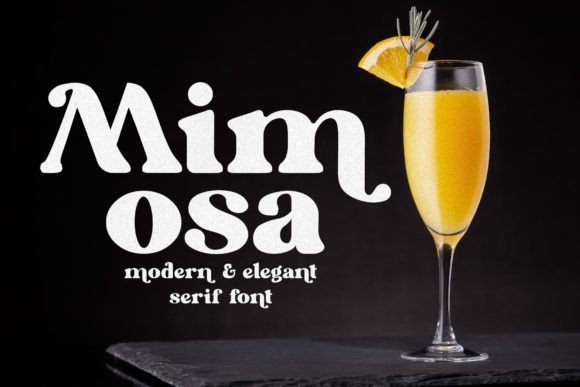
Journey back in time with Mimosa Font, the captivating serif font that transports you to the golden eras of design. Inspired by the charm of the 1950s, 1960s, and 1970s, Mimosa epitomizes the timeless allure of vintage aesthetics.
Crafted by the visionary font designers at HipFonts, Mimosa seamlessly blends modern elegance with retro flair. Its meticulously crafted curves and sharp edges evoke a sense of nostalgia, instantly adding a touch of sophistication to your creative projects. Mimosa is the ultimate font for designers seeking to capture the essence of bygone eras.
Unleash your creativity with Mimosa's versatility, perfectly suited for a variety of design applications. From eye-catching advertising campaigns to unforgettable branding, Mimosa elevates your message with its timeless charm. Create striking logotypes that leave a lasting impression, or design packaging that exudes vintage appeal. Let Mimosa be your font of choice for captivating titles, headlines, and editorial designs.
With Mimosa, the possibilities are endless. Whether you're a seasoned designer or just starting your creative journey, this font will ignite your imagination. Embrace the allure of vintage design and let Mimosa transform your projects into timeless masterpieces.